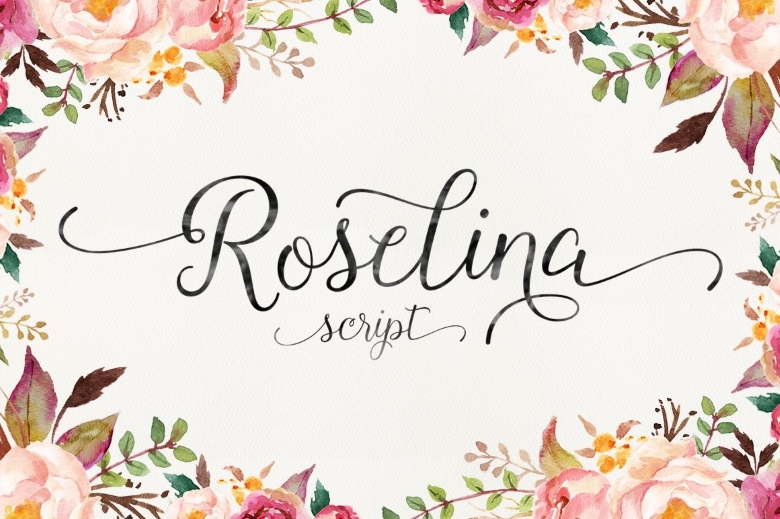
Roselina Script Font
Roselina is a lover and sweet hand calligraphy font having characters which move across the baseline. It will rich up any design project that you have in mind that you wish to work on! This font is PUA encoded that implies you can use all of the stunning glyphs and ligatures without any difficulty.
Roselina Script Calligraphy Font